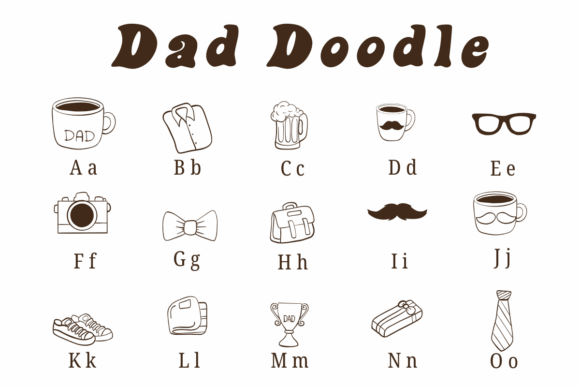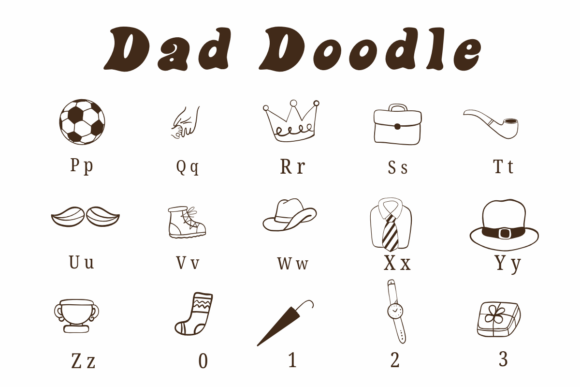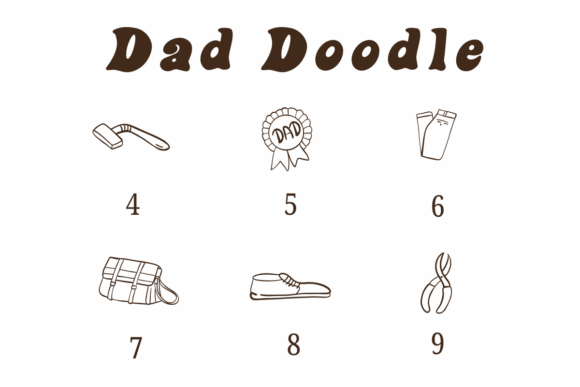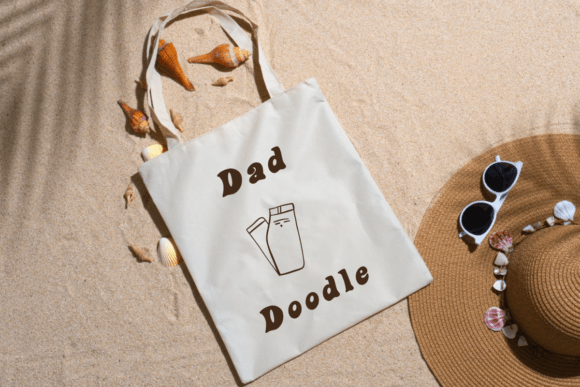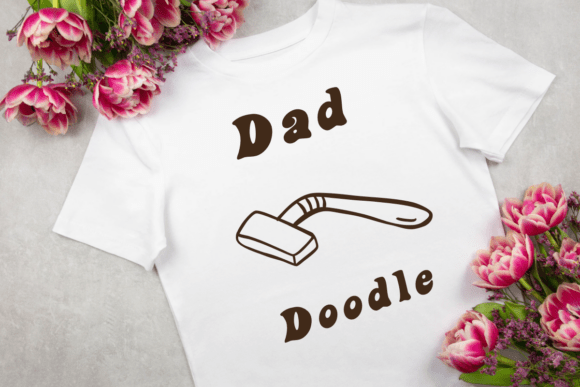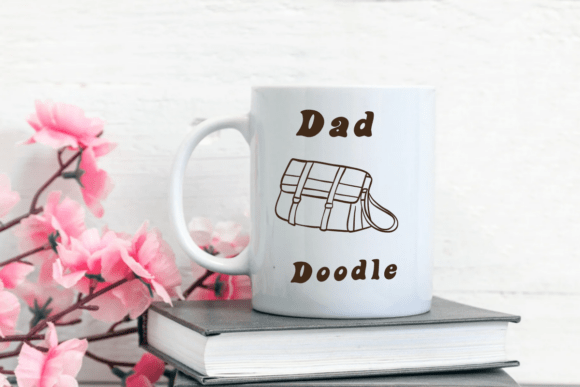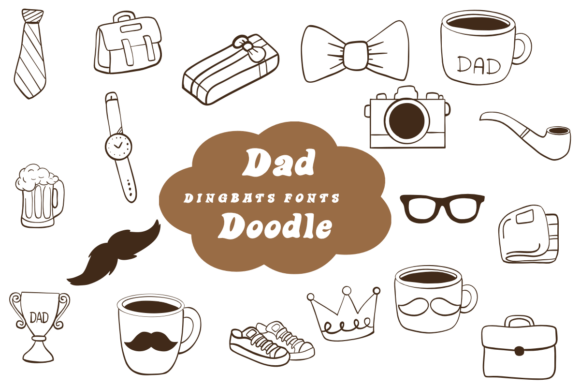
Dad Doodle Font: The Perfect Addition to Your Father’s Day Projects
Are you looking for a unique and playful way to add a personal touch to your Father’s Day cards, crafts, and designs? Look no further than the Dad Doodle font, a charming dingbats font filled with fun, father-themed icons. From mustaches to coffee mugs and tools, this font is ideal for bringing a heartwarming vibe to any creative project.
What is Dad Doodle Font?
Dad Doodle is a dingbats font that features a collection of fun and quirky icons related to fathers and fatherhood. The font includes a wide range of symbols, from classic mustaches and beards to coffee mugs, tools, and even a few humorous phrases. With its playful and lighthearted design, Dad Doodle is perfect for adding a personal touch to your Father’s Day projects.
Why Use Dad Doodle Font?
There are many reasons why Dad Doodle font is the perfect choice for your Father’s Day projects. Here are just a few:
- Unique and Playful Design: Dad Doodle font features a unique and playful design that is sure to stand out. The font’s fun and quirky icons will add a personal touch to your projects and make them more engaging.
- Father-Themed Icons: The font includes a wide range of father-themed icons, making it perfect for Father’s Day projects. From mustaches to tools, you’ll find everything you need to create a fun and heartwarming design.
- Easily Customizable: Dad Doodle font is easily customizable, allowing you to adjust the size, color, and style to fit your project’s needs.
- Perfect for Crafts and Designs: The font is ideal for crafts, cards, and designs, making it a great addition to your creative toolkit.
Ideas for Using Dad Doodle Font
There are many creative ways to use Dad Doodle font in your projects. Here are a few ideas to get you started:
- Design a Father’s Day Card: Create a personalized Father’s Day card using Dad Doodle font. Add a few fun icons, such as a mustache or a coffee mug, to make it extra special.
- Create a Kids’ Printable: Use Dad Doodle font to create a fun and educational printable for kids. You could create a coloring page or a worksheet featuring the font’s playful icons.
- Design a T-Shirt: Add a playful touch to your Father’s Day t-shirt designs with Dad Doodle font. Use the font’s fun icons to create a unique and eye-catching design.
- Make a Craft: Use Dad Doodle font to add a personal touch to your Father’s Day crafts. You could create a scrapbook page or a handmade card featuring the font’s charming icons.
Tips for Using Dad Doodle Font
Here are a few tips for using Dad Doodle font in your projects:
- Experiment with Different Sizes and Colors: Don’t be afraid to experiment with different sizes and colors to find the perfect look for your project.
- Combine with Other Fonts: Try combining Dad Doodle font with other fonts to create a unique and interesting design.
- Use Icons Sparingly: Use the font’s icons sparingly to avoid overwhelming your design. A few strategically placed icons can make a big impact.
Dad Doodle font is a charming and playful dingbats font that is perfect for adding a personal touch to your Father’s Day projects. With its wide range of father-themed icons, easily customizable design, and perfect for crafts and designs, this font is a great addition to any creative toolkit. Whether you’re a designer, crafter, or DIY enthusiast, Dad Doodle font is sure to bring a heartwarming vibe to any project.